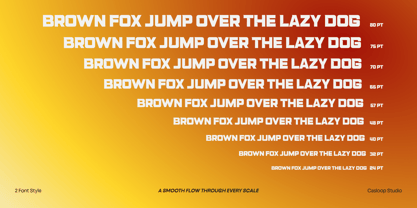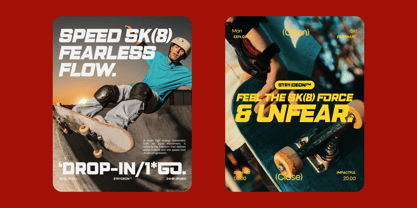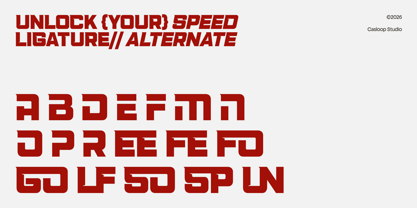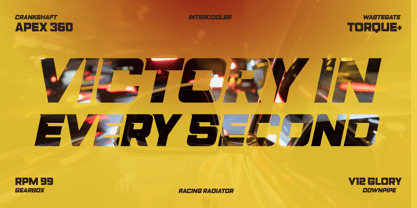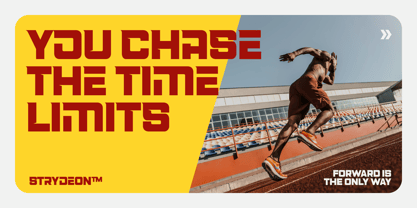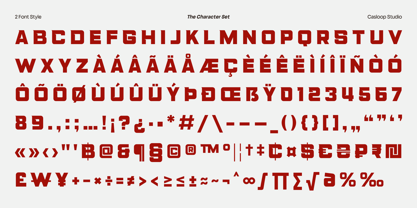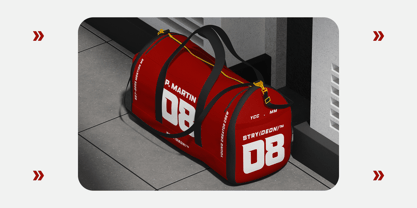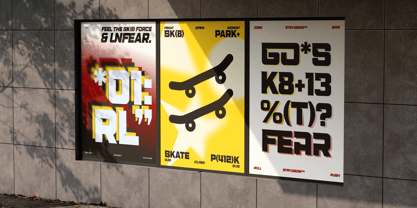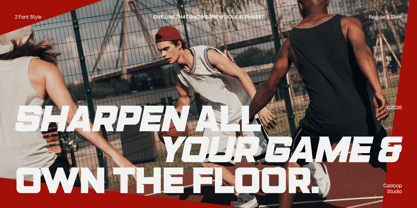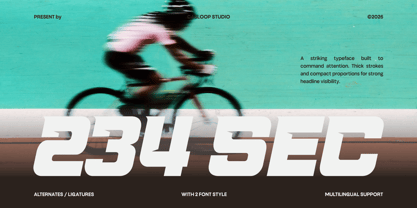
234 Sec
by Casloop Studio
The 234 Sec Font Family was designed by Wantara Putra and published by Casloop Studio. 234 Sec contains 2 styles and family package options. More about this family
234 Sec is a bold sport headline display font designed to capture the intensity and motion of competitive athletics. The typeface emphasizes strong characters such as A, R, K, Y, and S, delivering sharp angles and confident structures that instantly command attention. Dynamic details like the SP and GO ligatures introduce a sense of forward movement, while alternate G and R forms enhance its aggressive, high-performance personality. With its powerful silhouette and energetic rhythm, 234 Sec is perfectly suited for racing visuals, sports branding, gym identities, logos, and headline designs that demand speed, strength, and visual dominance. Recommended pairing with Bebas Neue, Rajdhani, Orbitron, Helvetica Neue, Eurostile, Impact Multilingulal Support : Bosnian, Catalan, Czech, Danish, German, English, Spanish, Estonian, Finnish, French, Irish, Croatian, Hungarian, Icelandic, Italian, Lithuanian, Latvian, Dutch, Norwegian, Polish, Portuguese, Romanian, Slovak, Slovenian, Albanian, Swedish, Turkish.
Designers: Wantara Putra
Foundry: Casloop Studio